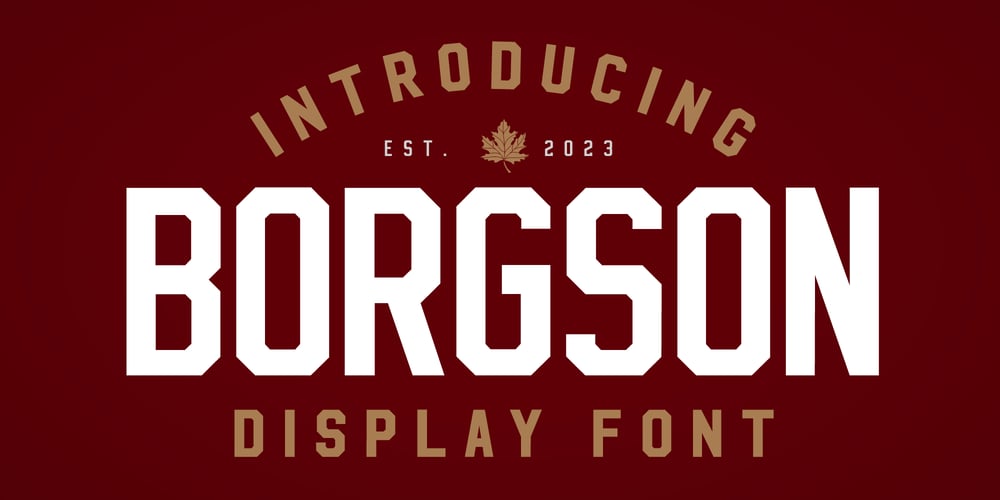
Borgson Font Family was designed by Swinn Jonathan and published by Alphabet Agency. Borgson contains 1 styles and family package options. Borgson font is a sans serif display font that includes capitals and small capitals. The font includes basic Latin characters (128 characters). The font is great for vintage and hipster themes as well as sports related themes.